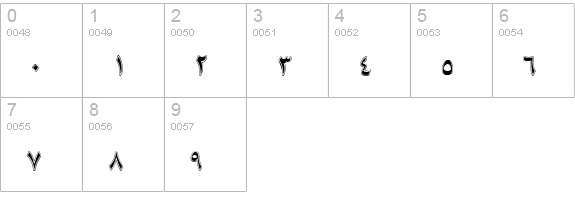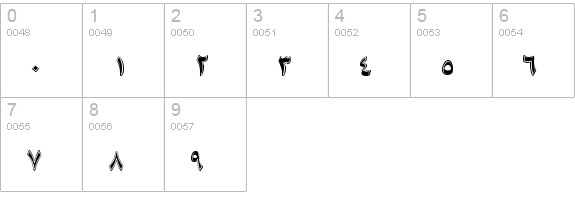
B Mah Font Details
B Mah font is a stunning display font that exudes elegance and sophistication. With its unique and stylish design, this font is perfect for creating eye-catching headlines, logos, and branding materials. The sleek lines and modern look of B Mah font make it a versatile choice for a wide range of design projects. One of the best things about B Mah font is that it is completely free to download. You can get your hands on this beautiful font at FontsMarket.com, where you can easily access and download it for all your creative needs. Whether you are a designer, a marketer, or simply someone who appreciates good typography, B Mah font is sure to impress with its clean and polished appearance. Add a touch of sophistication to your designs with B Mah font and see how it can elevate your projects to the next level. Download it for free today and start creating stunning visuals that stand out from the crowd.